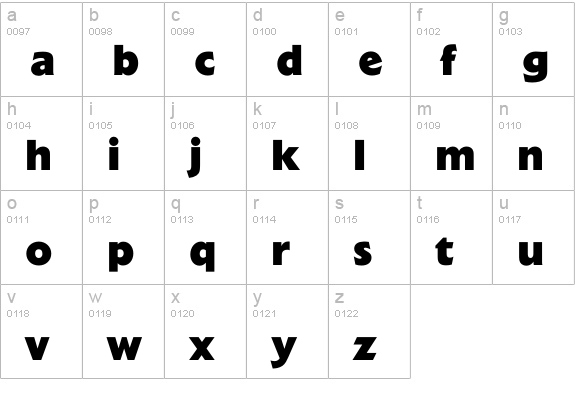
ExtensionExtraBold Font Details
ExtensionExtraBold is a striking and commanding typeface that exudes confidence and strength. With its bold and robust letterforms, this font is perfect for making a bold statement in headlines, titles, and other display uses. The sharp and angular design of ExtensionExtraBold gives it a modern and edgy look that is sure to grab attention. This high-impact font is ideal for conveying a strong and powerful message in your designs. Whether you are creating posters, logos, banners, or any other design project that requires a bold and attention-grabbing typeface, ExtensionExtraBold is sure to make a bold impression. Best of all, ExtensionExtraBold is available for free download at FontsMarket.com, making it easy to add this powerful font to your collection. Don't miss out on this opportunity to enhance your designs with the bold and impactful style of ExtensionExtraBold.